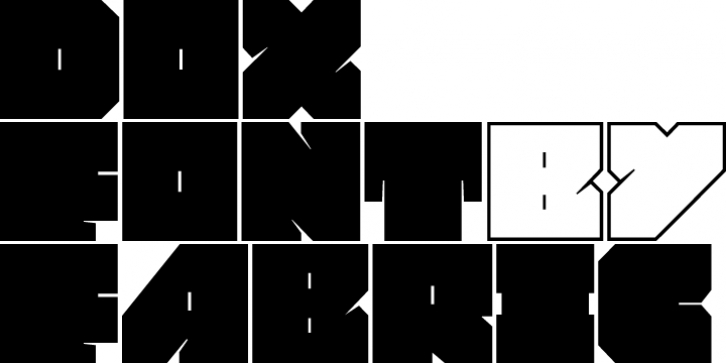
Dox was designed by Svetoslav Simov and published by Fontfabric. Dox contains 2 styles and family package options.
Dox is a custom font which is applicable for any type of graphic design - web,
print, motion graphics etc and perfect for t-shirts and logos.